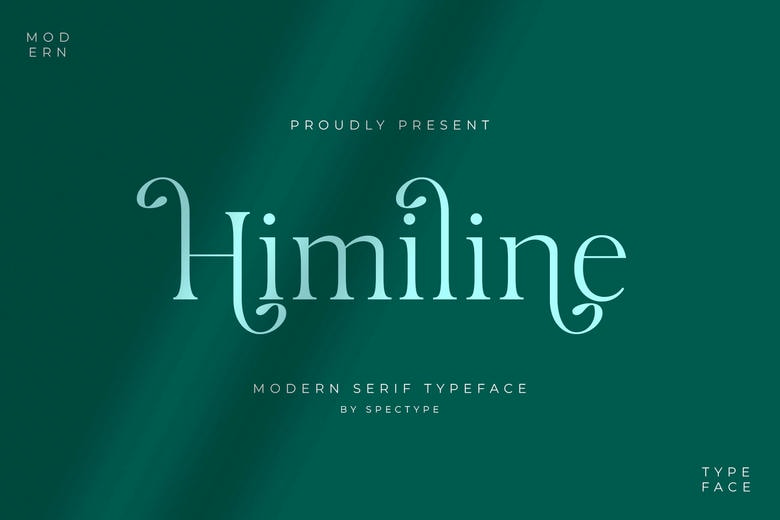
Himiline Font
Himiline is a high class and fashionable serif font. Be in love with its versatile style and use it to make beautiful wedding invitations, beautiful stationary art, social media posts that are eye catching among many others!
Himiline Serif Font